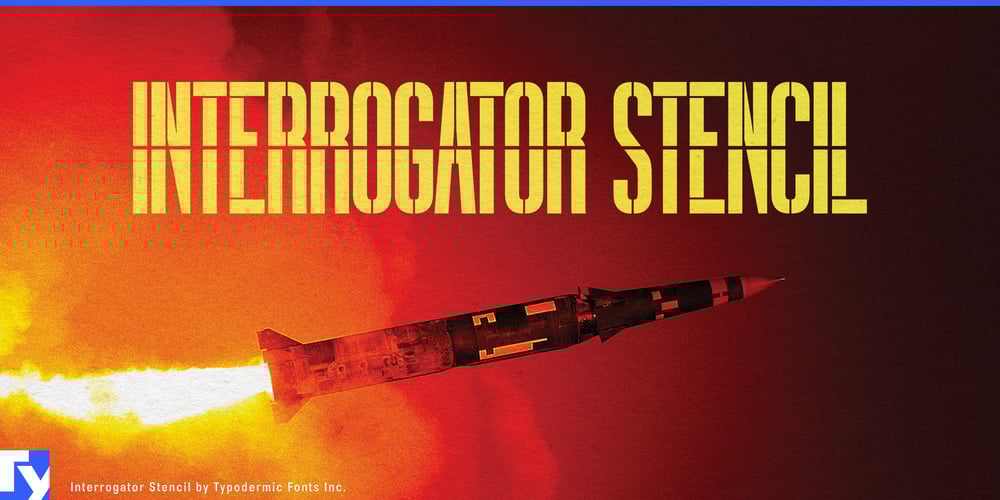
Interrogator Stencil Font Family was designed by Ray Larabie and published by Typodermic. Interrogator Stencil contains 1 styles and family package options. Interrogator Stencil stands ready to deploy, a precision-engineered typeface designed for missions where failure is not an option. Its military-inspired aesthetics and strategic crosshair divisions make it the ultimate weapon in your design arsenal, capable of conveying authority with razor-sharp accuracy.This is a tactical asset built to dominate the visual landscape. The technical prowess of Interrogator Stencil allows it to execute a wide range of design objectives with surgical precision. From sci-fi movie posters that demand attention to logos for cutting-edge tech firms that need to project power and innovation, this typeface delivers results with military efficiency. Interrogator Stencil’s unique character set is equipped to handle a vast array of linguistic terrain. Its extensive language support covers most Latin-based European writing systems—a veritable United Nations of typographic capability. This font’s linguistic arsenal is locked, loaded, and ready to engage targets across a multitude of communication fronts.For designers who refuse to compromise, who demand nothing less than typographic superiority, Interrogator Stencil awaits your orders. It’s time to arm your designs with a font that doesn’t just make an impression—it leaves an impact. Gear up with Interrogator Stencil and prepare to conquer the battlefield of graphic design with unparalleled force and precision.